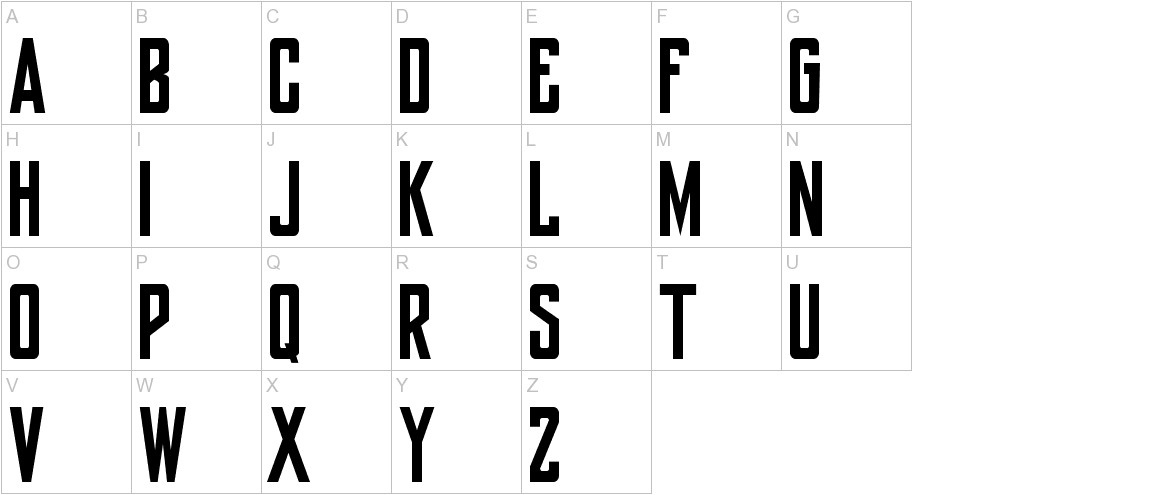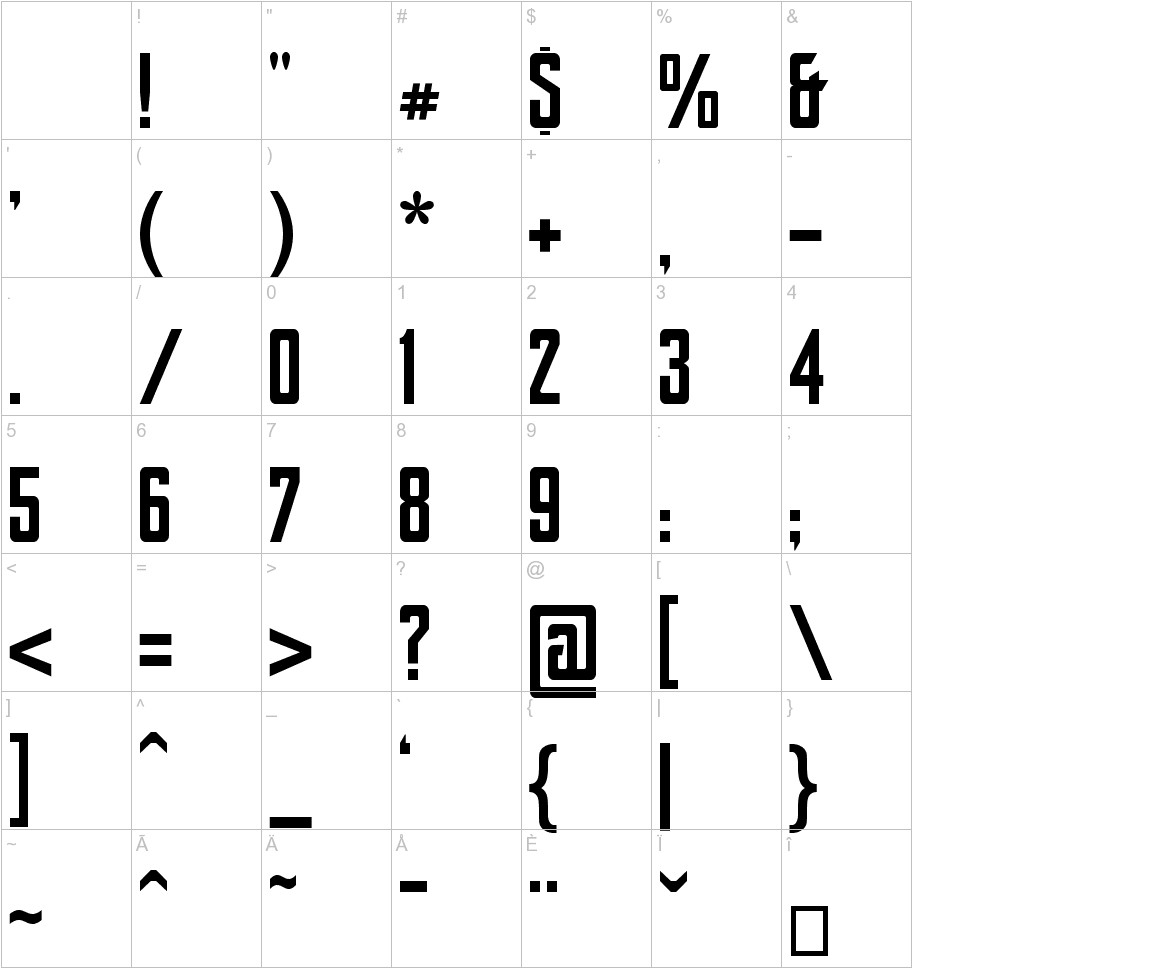
York Baile Hill
York Baile Hill is the surprisingly popular York Whiteletter font, freed from the surly bonds of its banner background. With the addition of lowercase and extended language support, York Baile Hill is a versatile display face that hasn?t forgotten its wood type origins.